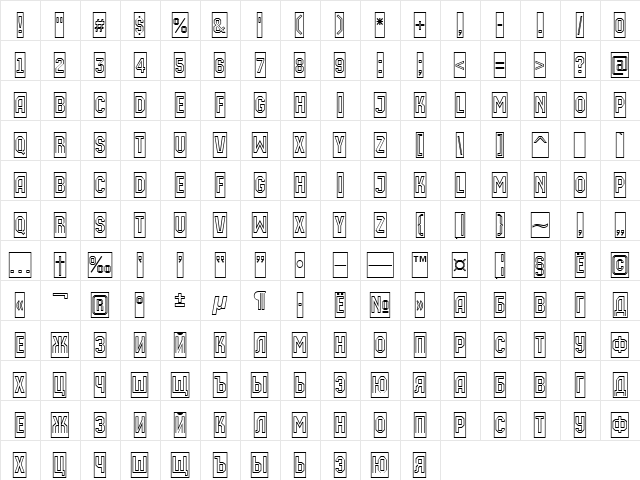
a_MachinaOrtoCmOtl Regular
a_MachinaOrtoCmOtl is a composed and adaptable typeface that performs quietly and consistently across a wide range of design contexts.